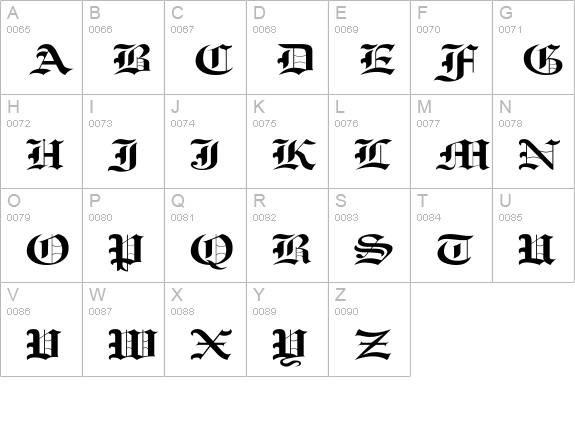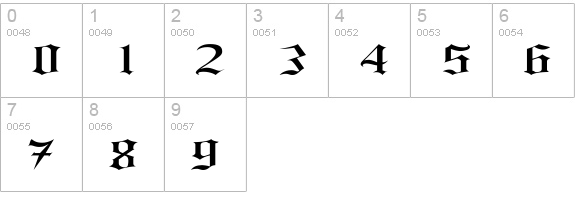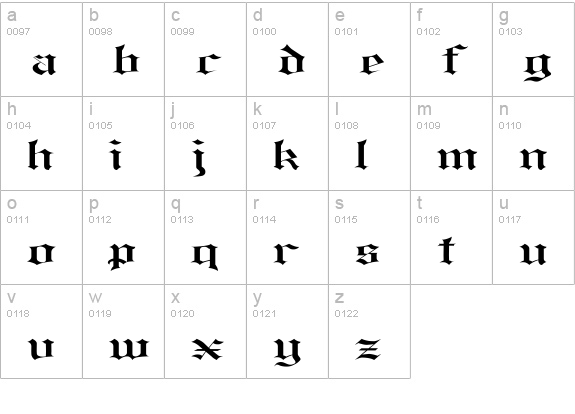
Helena Ex Font Details
Helena Ex is a stunningly elegant font that exudes sophistication and charm. With its delicate letterforms and graceful curves, this typeface captures the essence of timeless beauty. Whether used in print or digital designs, Helena Ex adds a touch of class and refinement. What makes Helena Ex even more remarkable is that it is available for free. That's right, you can easily download this exquisite font without spending a penny. It is freely available to download at FontsMarket.com, a trusted platform for quality fonts. With its extensive character set and variety of weights, Helena Ex offers versatility and flexibility for your design needs. Whether you are creating wedding invitations, branding materials, or editorial designs, this font will elevate your project to new heights. The attention to detail in Helena Ex is second to none. Each letter has been meticulously crafted, ensuring a seamless and harmonious overall appearance. The legibility of this font is exceptional, making it a perfect choice for headlines, titles, and body text alike. Helena Ex is a true work of art, showcasing the talent and creativity of its designer. Its timeless beauty and elegance will make your designs stand out and leave a lasting impression on viewers. And the fact that it is free to download only adds to its appeal. So why wait? Head over to FontsMarket.com and get your hands on this extraordinary font. With Helena Ex, you have the opportunity to add a touch of sophistication and class to your designs, without spending a dime. Start creating stunning visuals today with this freely available font.